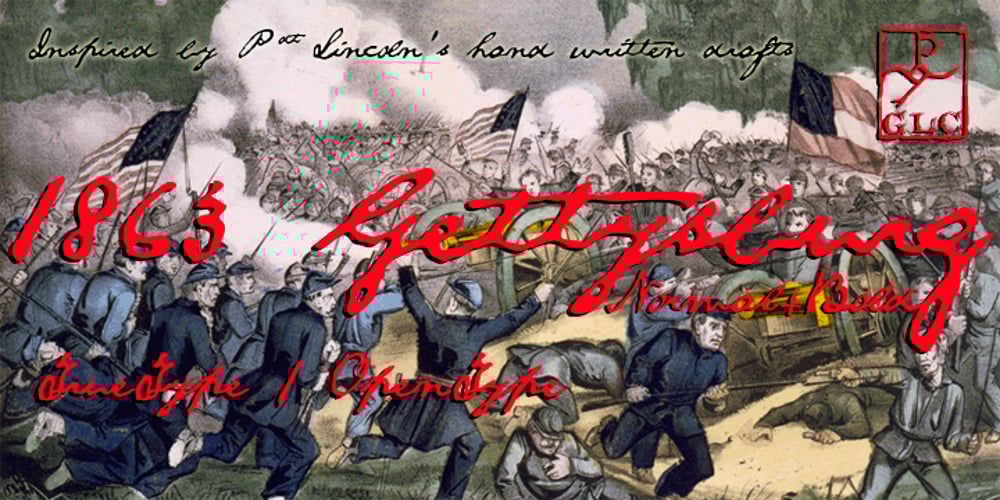
1863 Gettysburg
1863 Gettysburg font
1863 Gettysburg Font Family was designed by Gilles Le Corre and published by GLC. 1863 Gettysburg contains 2 styles and family package options. This script font was inspired by a lot of autographs, notes and drafts, written by President Abraham Lincoln, mainly the Gettysburg address, first draft and copies, but also the emancipation proclamation. It is an attempt to offer a typical manual script from this American period, not to propose the exact writing from A. Lincoln himself. This font is a little fat and monotone, maybe Abraham Lincoln used a smooth or rounded pen, but some letters I have consulted were written obviously with a sharp one, so, in the future, I will certainly produce a slim version of this font. It is used as variously as web-site titles, posters and fliers design or greeting cards, all various sorts of presentations, menus, certificates, letters. This font supports enlargement as well as small size, though the original size was about 18 to 24 pts. When printed, it remain perfectly legible from 10 to 12 pts.